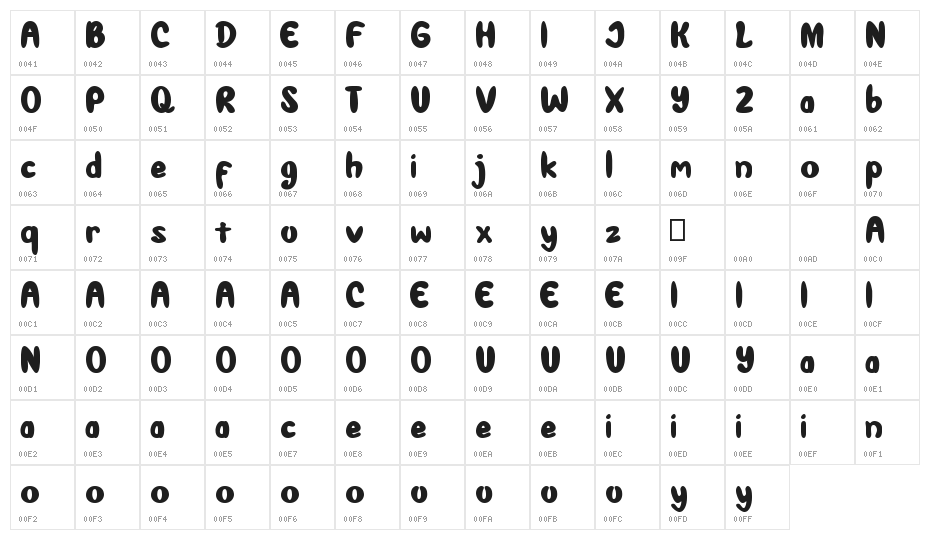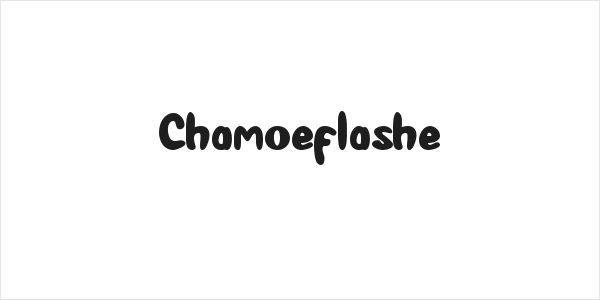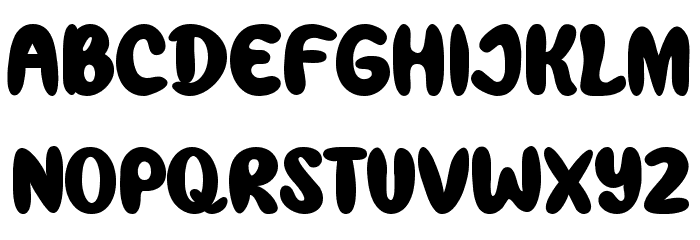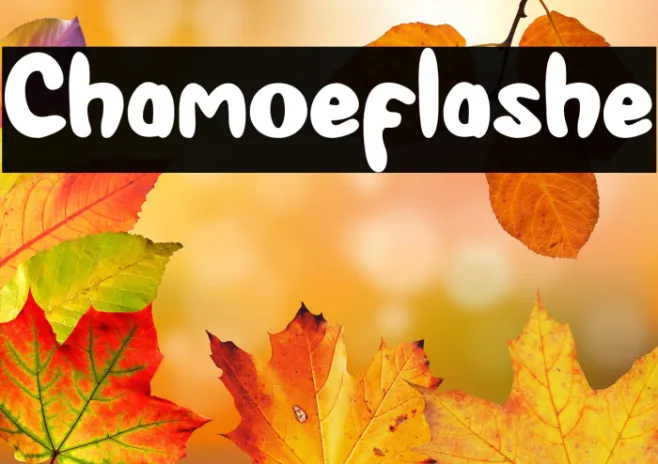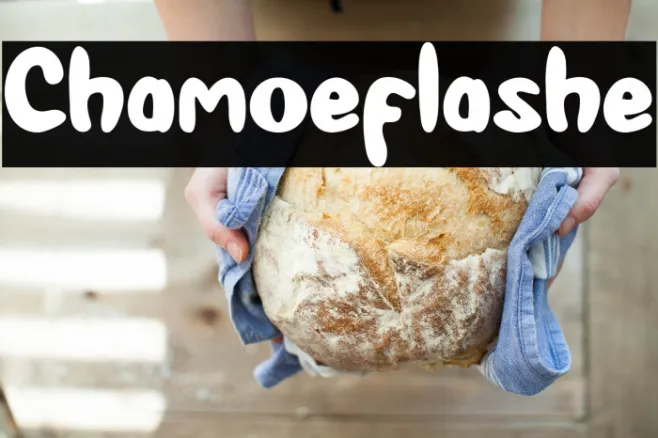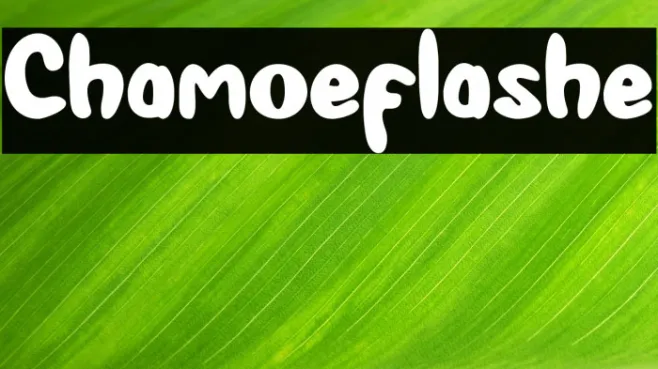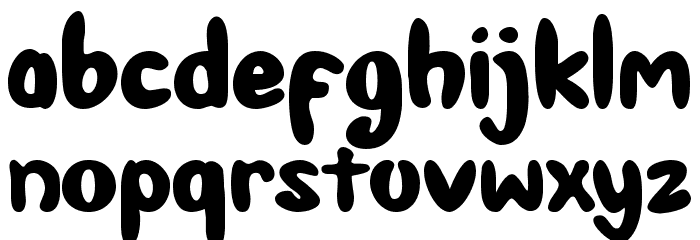
Chamoeflashe Font
Chamoeflashe Description
This playful and bold font features a unique, rounded style with thick, consistent strokes that give it a friendly and approachable appearance. The characters are well-spaced, with a slightly condensed width that maintains readability while adding a touch of whimsy. The font's design is characterized by its smooth curves and lack of sharp edges, making it ideal for projects that require a fun and informal tone. Its boldness ensures that it stands out, making it suitable for eye-catching headlines or creative branding. The font's style is consistent across both uppercase and lowercase letters, providing a cohesive look.
| Proposed Projects | Ideal for children's books, playful branding, event posters, and creative social media graphics. |